Calligraphy, Curiosity, and Craftsmanship: Examining Themes of My-Lan Thuong’s Work
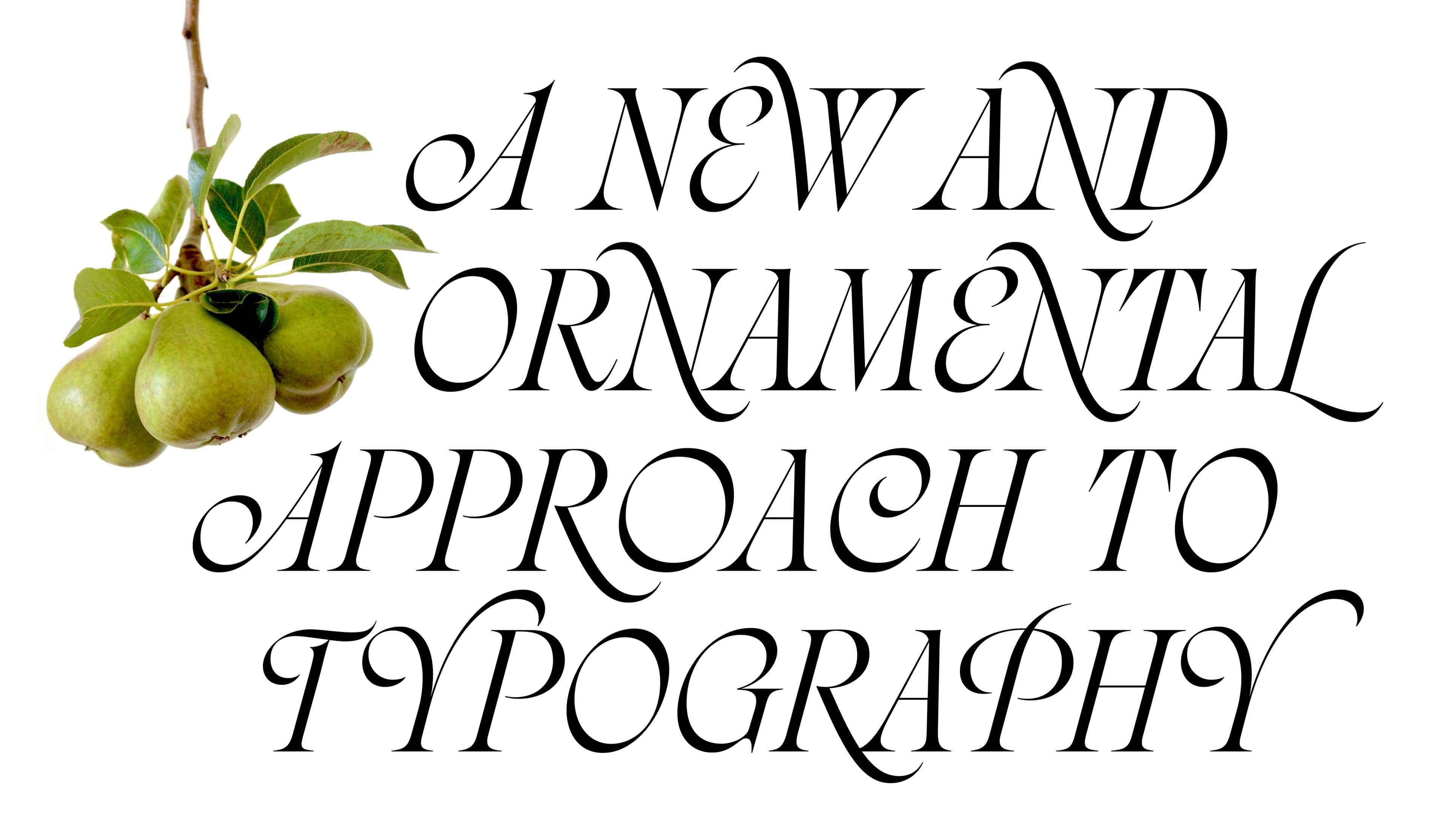
Typeface design is an intricate art that thrives on details, but what happens when designers zoom out to embrace the broader socio-political and cultural landscape? My-Lan Thuong, a Vietnamese-French designer at Sharp Type, exemplifies this approach, weaving her unique perspectives into both the concepts and aesthetics of her work. Her journey began by working with Coppers and Brasses, on projects such as the type family for Radio Canada and the release of Baryton, ultimately leading to her current role at Sharp Type.
Over the past six years at the USA-based type foundry, she has gone from strength to strength, contributing to major bespoke client projects, including Prime Video, Twilio, and Williams College, as well as developing retail typefaces and families. Carta Nueva, for example, is a digital reinterpretation of a pointed-nib calligraphy model from 1851 and has been used by both the Festival de Cannes and Nike. Furthermore, she has directed Sharp Type’s extensive OmniLatin research project, sharing her findings as a speaker at international type conferences.
Elegance and Timelessness
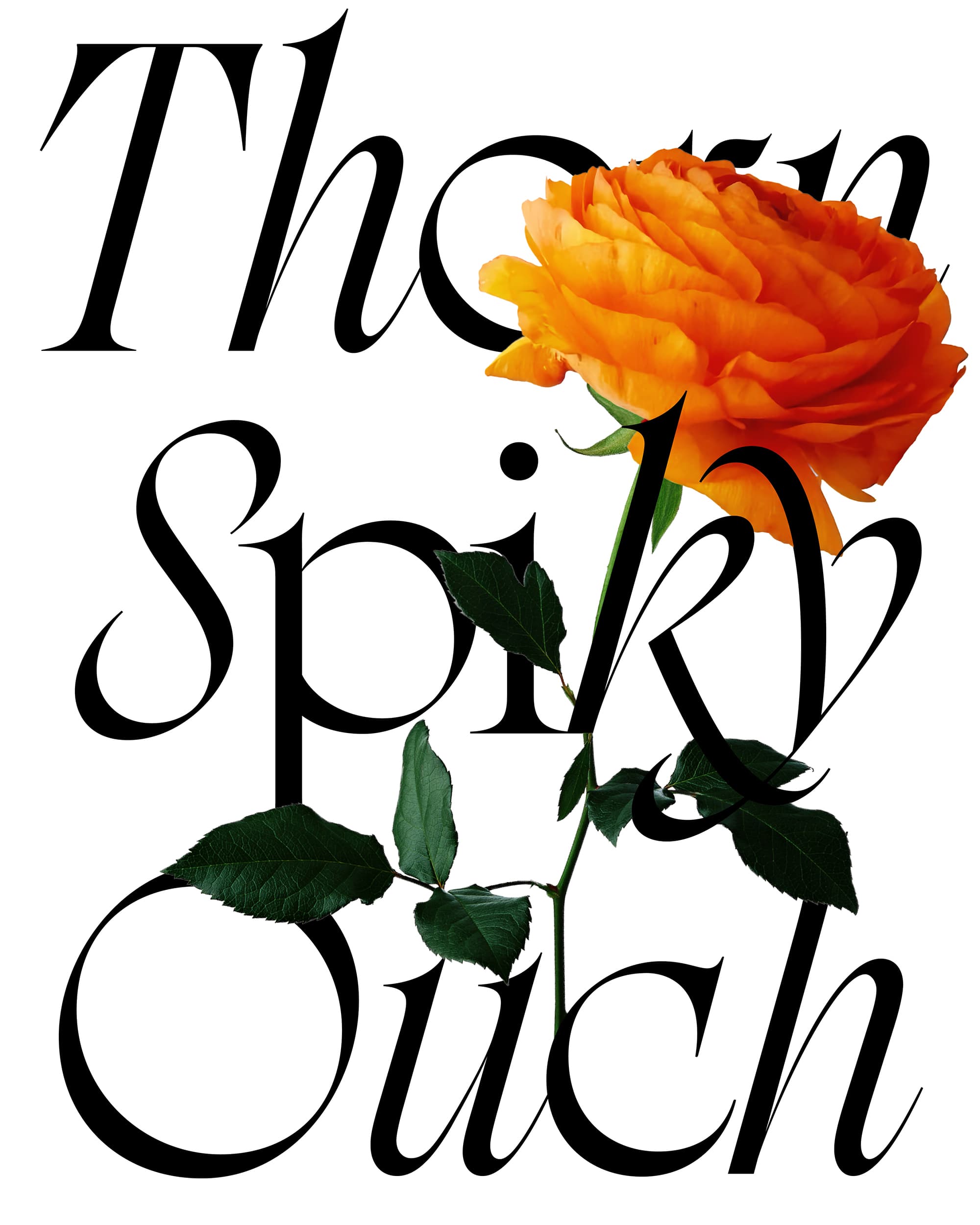
Rosalie, Thuong’s latest release, has received high praise and recognition, winning awards from the prestigious Type Directors Club, D&AD, and ADC. For her, this response has been “both very heartwarming and surprising,” having dedicated so much time refining the typeface. “Rosalie is such a special design, I was very unsure people would like it, or even if I did anymore either.”
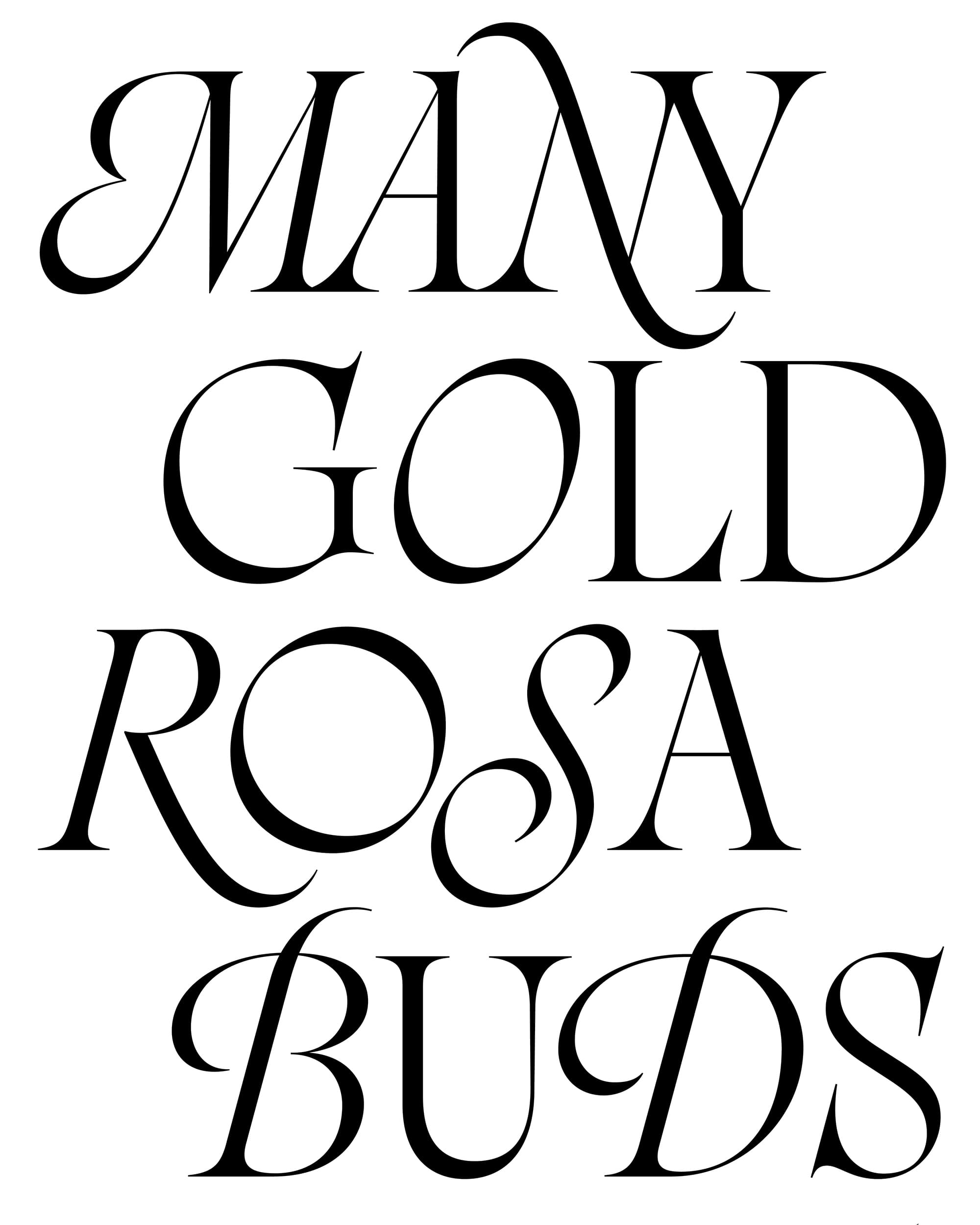
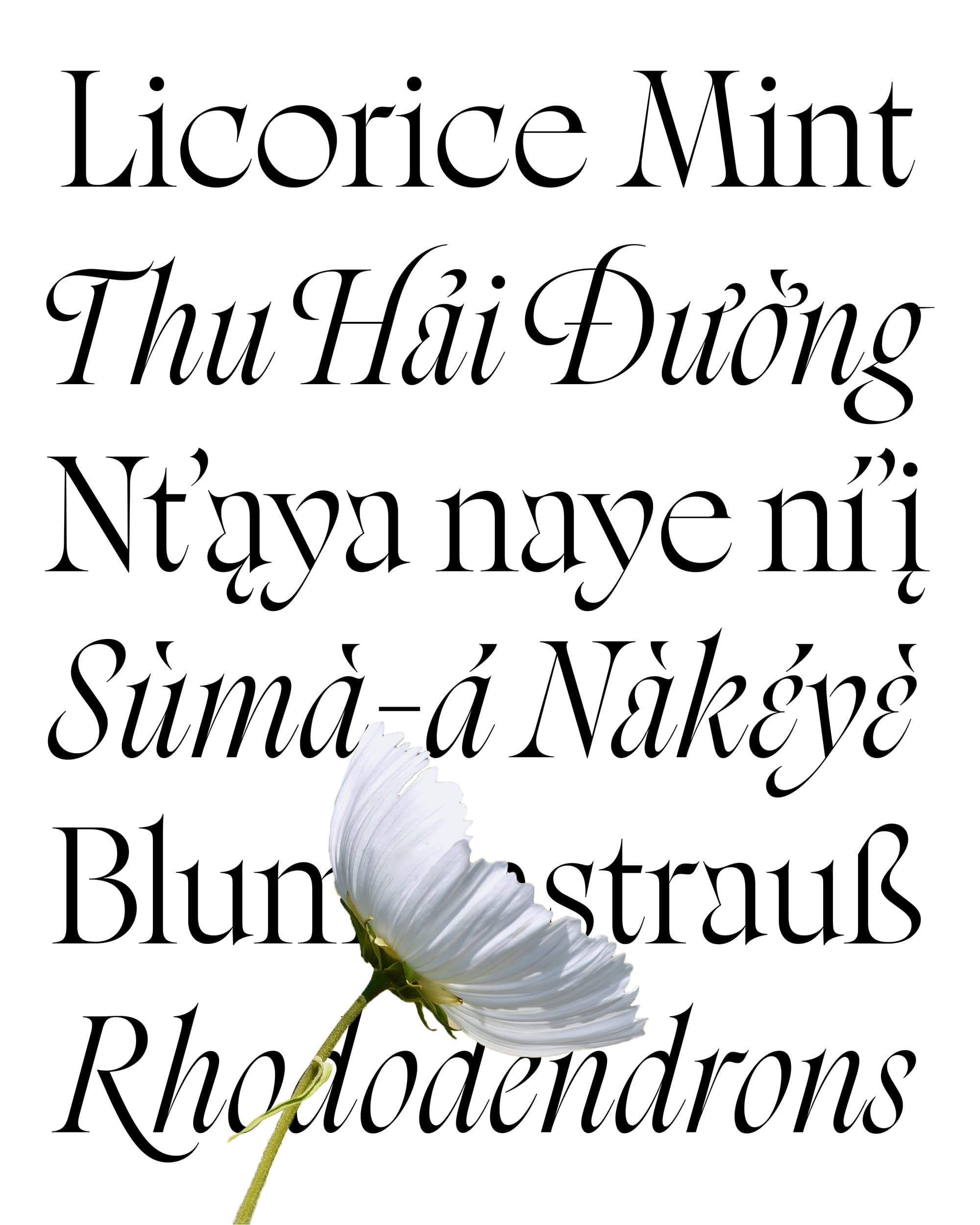
Following six years of development, every curve, taper, stroke, spine, and serif has been rigorously refined, resulting in a sophisticated and effortlessly flowing set of glyphs. The starting point of this typeface sets the scene — the Collégiale Saint-Aubin (a 12th-century church) on a rainy day in the medieval French town of Guérande. The lettering on the walls was unlike anything Thuong had encountered in her career.
Mesmerised by the dualities of its style — fussy yet elegant, medieval yet timeless — she explored how she could adapt the lettering to suit a more contemporary landscape — something more functional yet resonant with the spirit of the original. “It has been a strange quest and long journey to reconcile my temptation to draw quirky letterforms and my intention to make them both beautiful and functional,” she reflects.
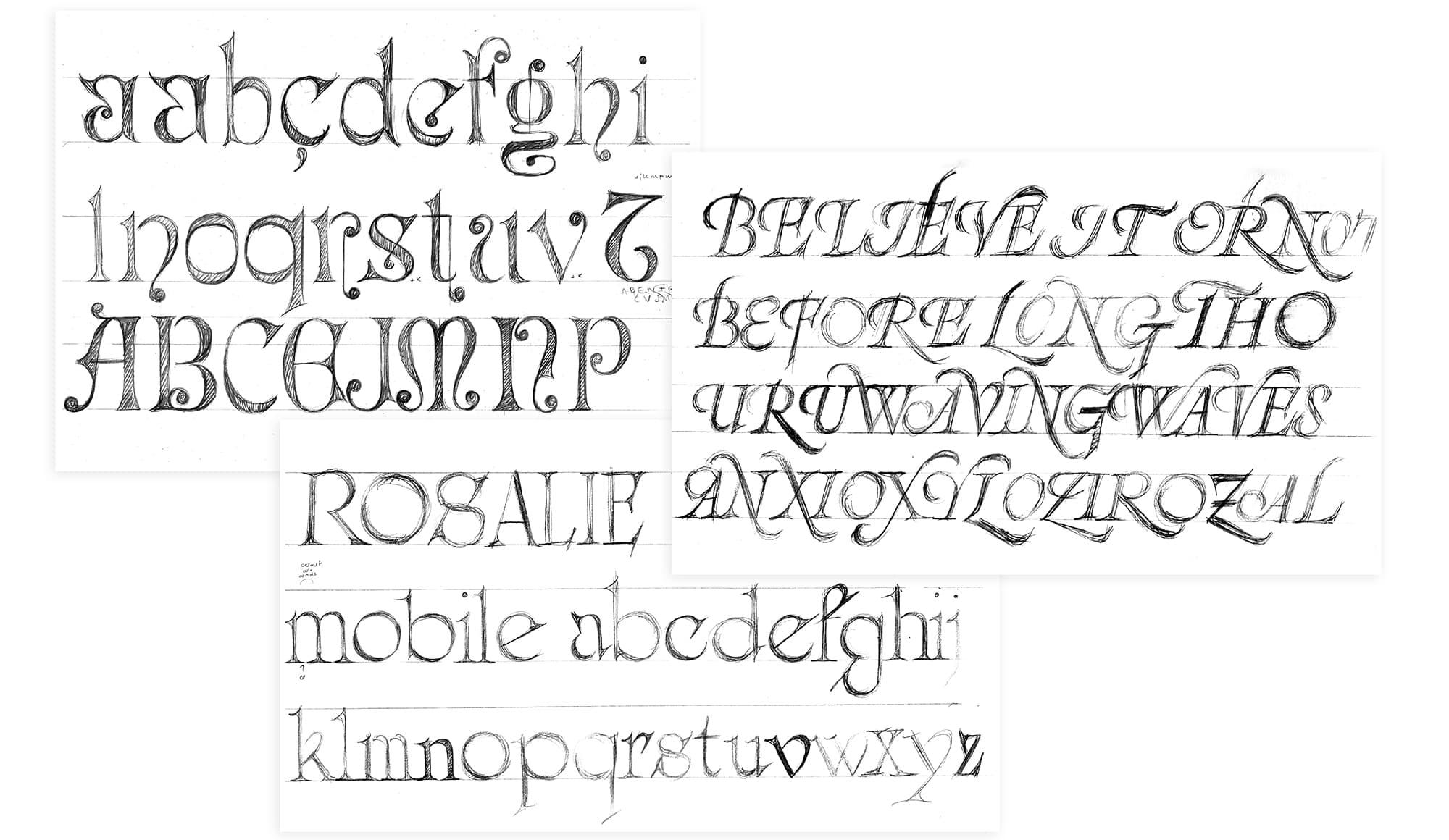
A self-confessed perfectionist, Thuong reveals that it took some time to build up the courage to publish it. “It was sort of the first time I published one of my own designs, and it was terrifying to share it with the world. Yet, I had spent so much time refining it and given it so much care, I wanted it out.” And what an impact it’s had! “I really didn’t expect it would get such a response,” she tells us of its reception from both designers and awards.
“I have been very moved to see it resonate with other people. It is a powerful encouragement for me to continue working on my designs, giving them a lot of care, and sharing them. I am very grateful.”
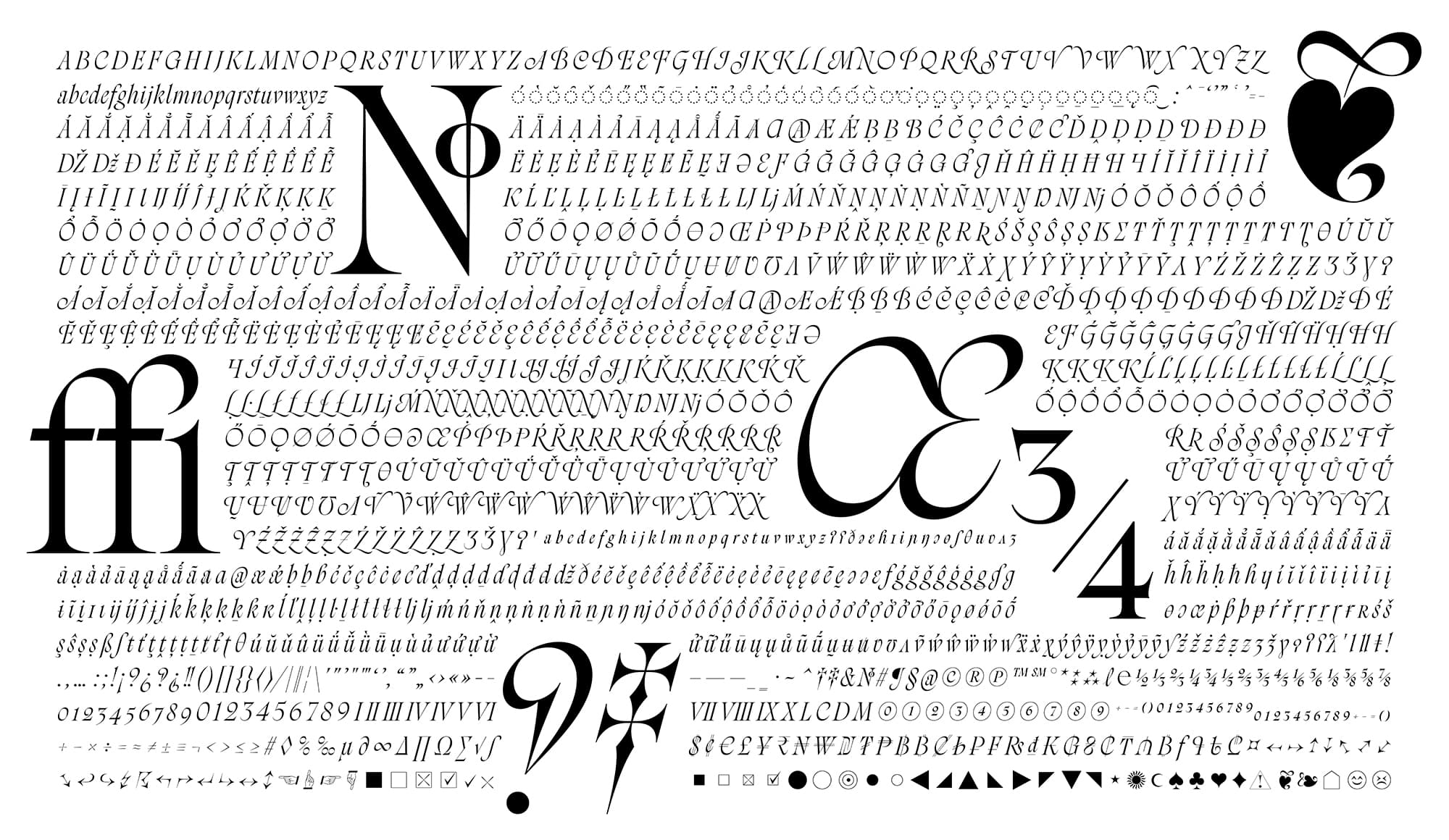
Calligraphy and Movement
As demonstrated in her typeface, Rosalie, Thuong’s approach to typography is contemplative and thoughtful, grappling with conflicting elements to produce sophisticated and functional typefaces, driven by a passion for the art of type design. A meticulous and innovative designer, she embraces both elegance and complexity in her work, with a particular affinity for the expressive nature of italic styles.
“One of the main threads that runs through my work is my fascination with movement,” she says. “However they are constructed, I try to breathe life into my designs. What a joy to see a static font seem to flow effortlessly!” For her, this originates from her long-standing fascination with handwriting, both as a practice itself and for its expressiveness.
“I love to feel the direct connection with the lettershapes through the hand.”
“I love to feel the direct connection with the lettershapes through the hand,” she says, also enjoying the process of sketching and the feel of pencil on paper. “Calligraphy is wonderful in that sense that it’s both writing and drawing at the same time,” she continues. “With one gesture, one tool, one pace, the letters take their final shape. And there are infinite variations of ductus, style, speed, angle and tool.”
Thuong’s initiation into type design came in the form of calligraphy, and she believes it is the most effective way to understand and master a design – a means to understand its roots, and move away from a reliance on outlines. As such, all of her designs – to varying extents – are informed by calligraphy, “even if it is more obvious for some than others,” she tells us. “Carta Nueva follows the slow and steady pace of a very delicate pointed nib; Rosalie carries the contrast of a broad nib pen, both dynamic but slowing down to perfect details; Voltige runs a fast yet intricate ductus where the nib never lifts up.”
This release was a significant step and a reminder that sharing work, whether it’s perfect or not, is key to growth and connection. “I am trying to be more courageous,” she says, aiming to share work sooner and not wait years until the next publication. “The motivation to dare is the understanding that I’m making a tool that other people can use to make great things with. And I can’t wait to see that!”